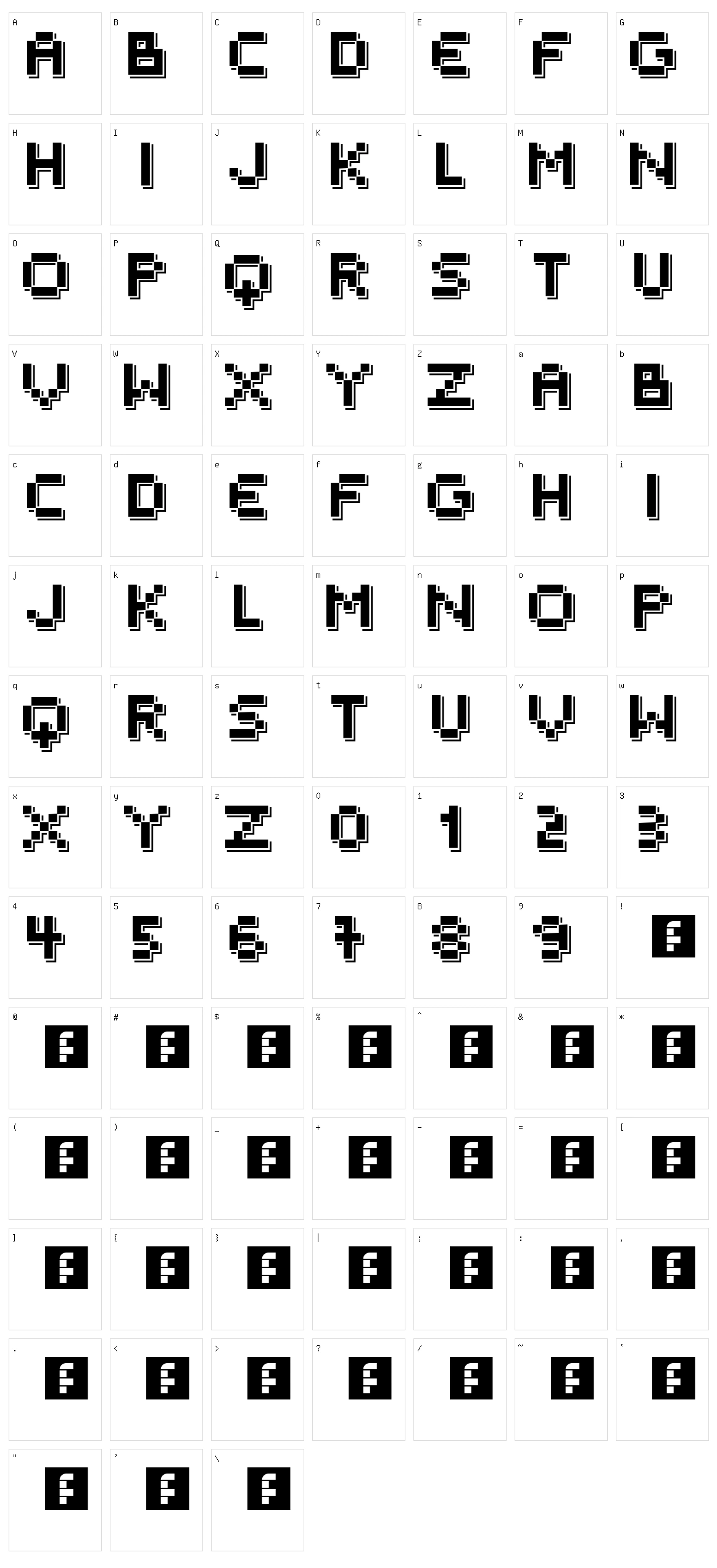
The free font Outer Space is carefully designed by Julia, showcasing a thoughtful balance of creativity and usability and falls under the Square font style. When you download the ZIP file, it contains only 8.08 KB of font files, making it lightweight and quick to download. Please review the license details below to understand permitted usage and distribution rights. If license information is not available, we recommend using this font for personal projects only or contacting the author directly for commercial usage permissions.